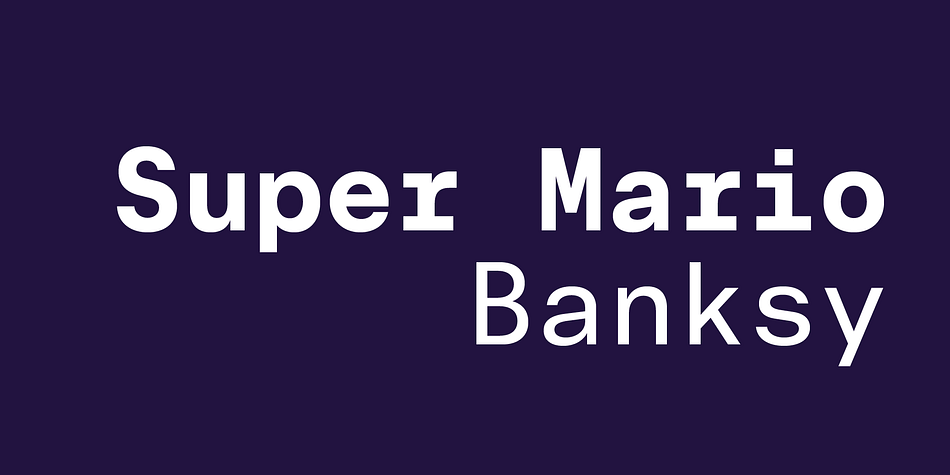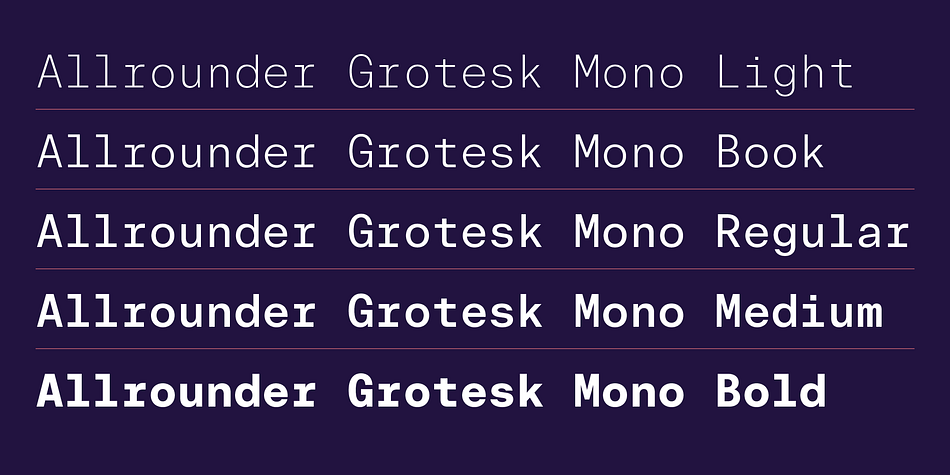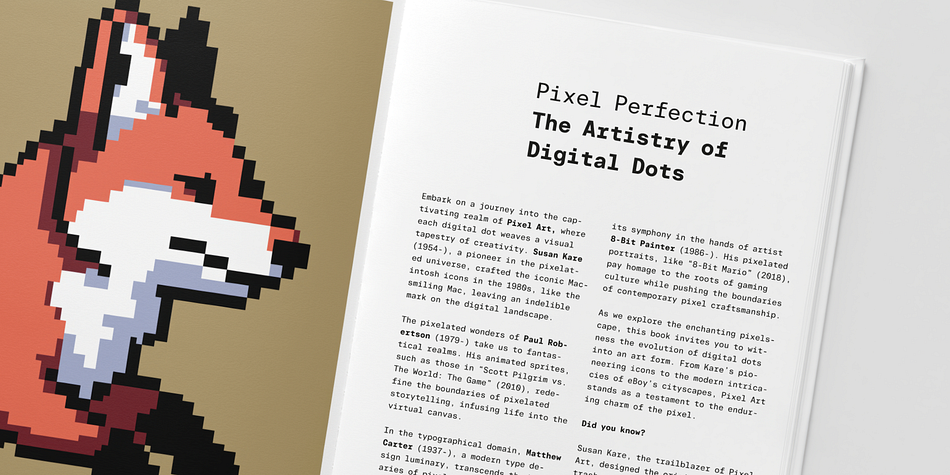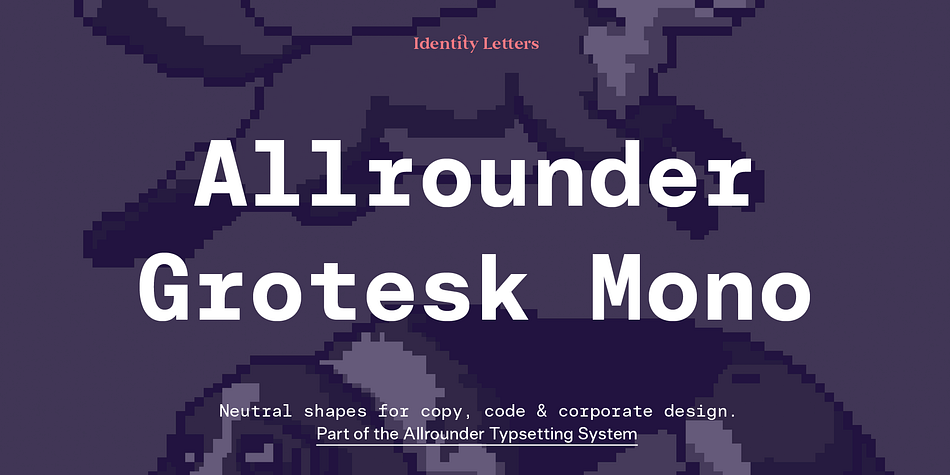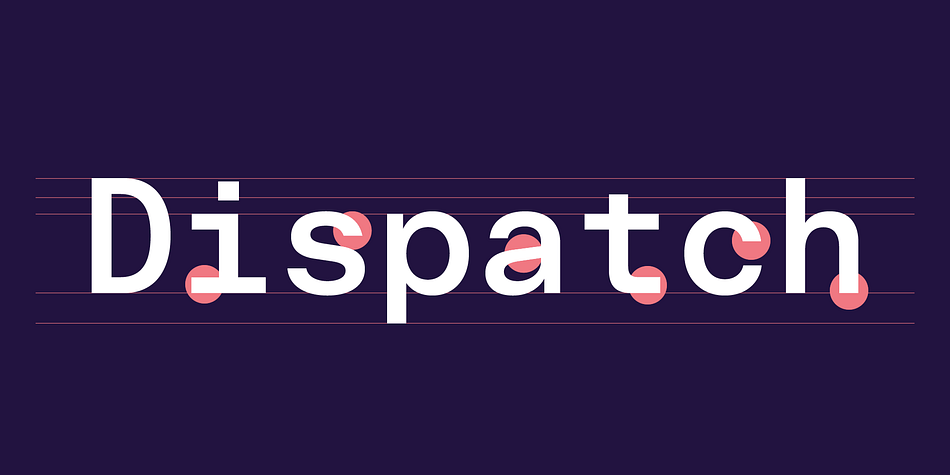
Allrounder Grotesk Mono
Designed by Moritz Kleinsorge, Allrounder Grotesk Mono is a sans serif font family. This typeface has five styles and was published by Identity Letters.
Allrounder Grotesk Mono is a non-proportional typeface that adapts the rational modernist letterforms of Allrounder Grotesk. While a monospace font is never the most versatile instrument in your typographic toolbox, the neutral shapes of Allrounder Grotesk Mono will ensure you can use it for literature magazines, hipster art brandings, code, final reminders—and much, much more. If there is such a thing as a monospace workhorse, this is it.
Allrounder Grotesk Mono consists of five weights from Light to Bold with 580+ glyphs per font. Its vertical metrics and texture match those of the other Allrounder typefaces: Combining fonts was never easier than with the Allrounder type system.